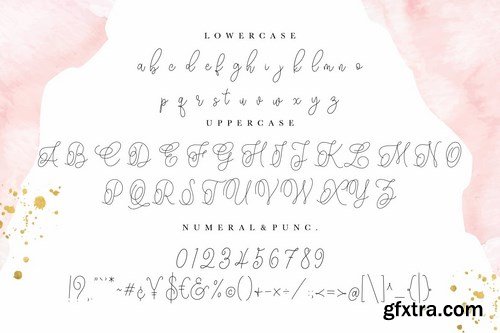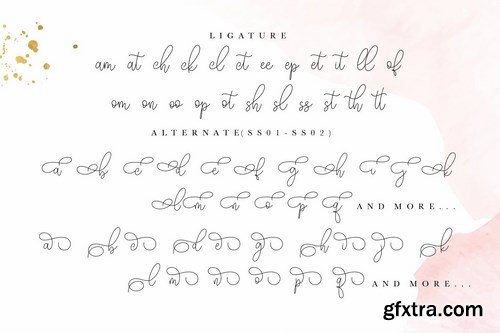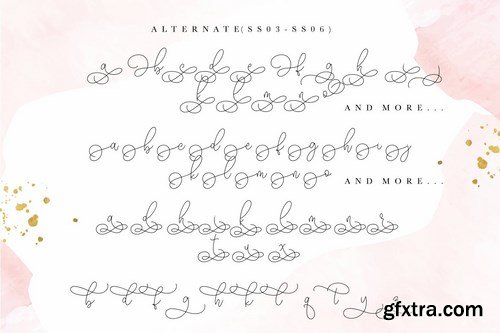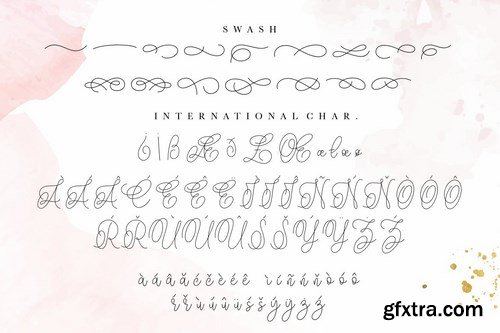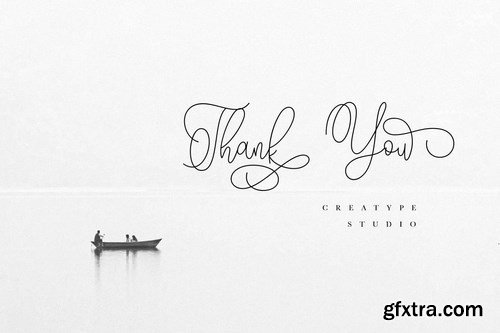
Hariette Sofirya a monoline signature font with natural line movement make this font looks classy, elegant and sophisticated.
Hariette Sofirya is perfect for branding projects, logo, wedding designs, social media posts, advertisements, product packaging, product designs, label, photography, watermark, invitation, stationery and any projects that need handwriting taste. What's Included : Hariette Sofirya (OTF/TTF/WOFF) Web Fonts Ton of glyphs Ligature, Alternate & Swashes Works on PC & Mac Simple installations Accessible in the Adobe Illustrator, Adobe Photoshop, Adobe InDesign, even work on Microsoft Word. PUA Encoded Characters - Fully accessible without additional design software. Fonts include multilingual support for; Afrikaans, Albanian, Catalan, Danish, Dutch, English, Estonian, Finnish, French, German, Hungarian, Icelandic, Italian, Norwegian, Polish, Portugese, Slovenian, Spanisch, Swedish.